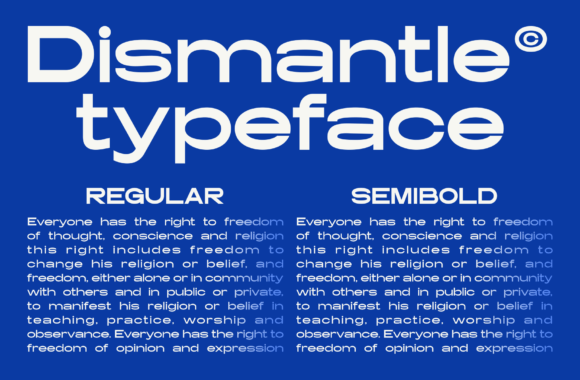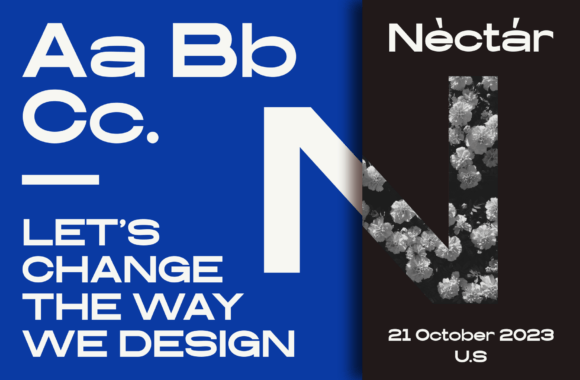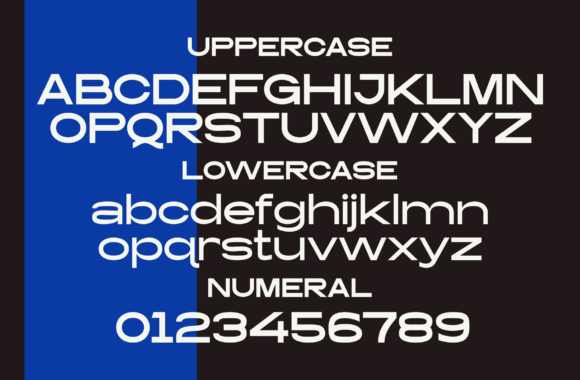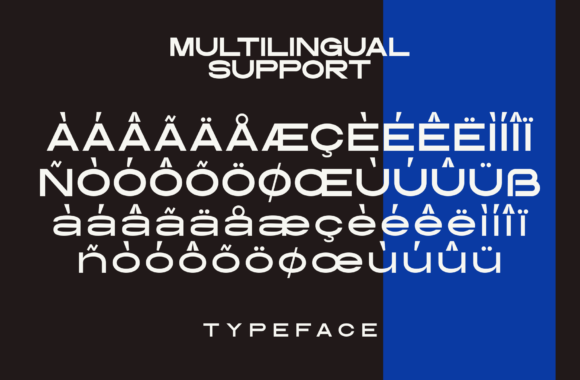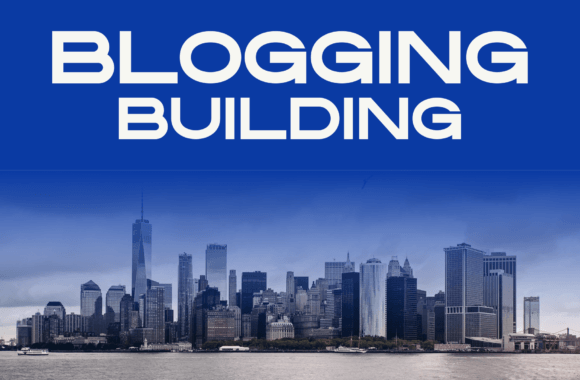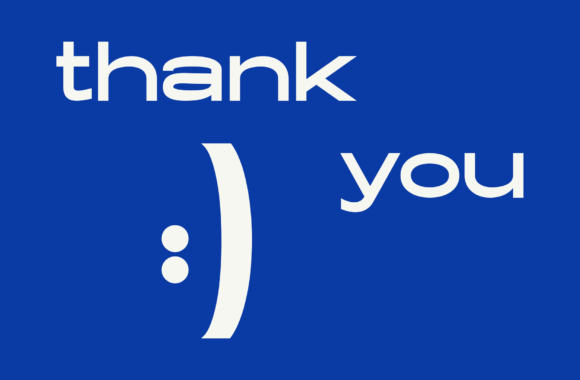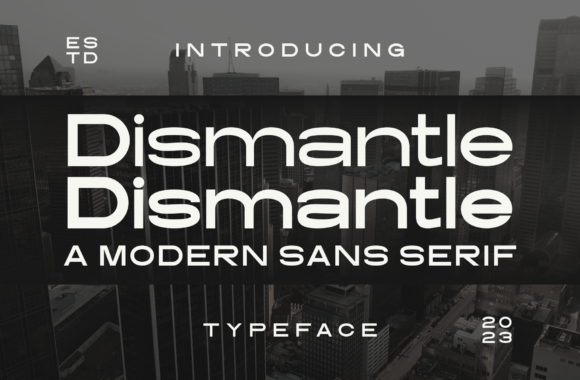
Introducing Dismantle Font: A Modern Sans Serif Font for Your Branding Needs
In the world of design, fonts play a crucial role in conveying the message and aesthetic of a brand. A well-chosen font can elevate a brand’s identity and make it stand out from the competition. Today, we’re excited to introduce our new product, Dismantle Font – a modern sans serif font designed to meet the demands of contemporary branding projects. In this article, we’ll explore the features and benefits of Dismantle Font, and why it’s the perfect choice for designers and crafters.
What is Dismantle Font?
Dismantle Font is a modern sans serif font that boasts a clean and authentic display style. Its sleek lines and minimalist approach make it an ideal choice for designers looking for a font that’s both versatile and stylish. Whether you’re working on a logo, template design, product packaging, or any other branding project, Dismantle Font is sure to impress.
Key Features of Dismantle Font
- Modern Sans Serif Style: Dismantle Font features a modern sans serif design that’s perfect for brands looking for a clean and contemporary look.
- Authentic Display Font: With its authentic display style, Dismantle Font is designed to make a statement and grab attention.
- Versatile and Flexible: Dismantle Font is suitable for a wide range of branding projects, from logos and template designs to product packaging and more.
- Easy to Read: Despite its modern and sleek design, Dismantle Font remains easy to read, making it perfect for body text and headlines.
Benefits of Using Dismantle Font
So, why choose Dismantle Font for your branding projects? Here are just a few benefits of using this modern sans serif font:
- Stand Out from the Competition: With Dismantle Font, you can create unique and eye-catching designs that set your brand apart from the competition.
- Consistency Across Branding: Dismantle Font’s versatile design makes it easy to use across various branding materials, ensuring consistency and cohesion.
- Time-Saving: With Dismantle Font, you can save time and effort in designing and re-designing your branding materials, as this font can be used for a wide range of projects.
- Professional Look and Feel: Dismantle Font’s modern and sleek design gives your branding materials a professional look and feel, perfect for businesses and individuals looking to establish a strong brand identity.
Who Can Benefit from Dismantle Font?
Dismantle Font is perfect for:
- Graphic Designers: Looking for a modern and versatile font to use in their branding projects.
- Brand Identity Experts: Seeking a font that can help establish a strong and consistent brand identity.
- Crafters and Makers: Needing a font that’s perfect for product labels, packaging, and marketing materials.
- Small Business Owners: Looking for a professional and modern font to use across their branding materials.
In conclusion, Dismantle Font is a modern sans serif font that’s perfect for designers and crafters looking for a versatile and stylish font for their branding projects. With its clean and authentic display style, Dismantle Font is sure to make a statement and elevate your brand’s identity. Whether you’re working on a logo, template design, product packaging, or any other branding project, Dismantle Font is the perfect choice.